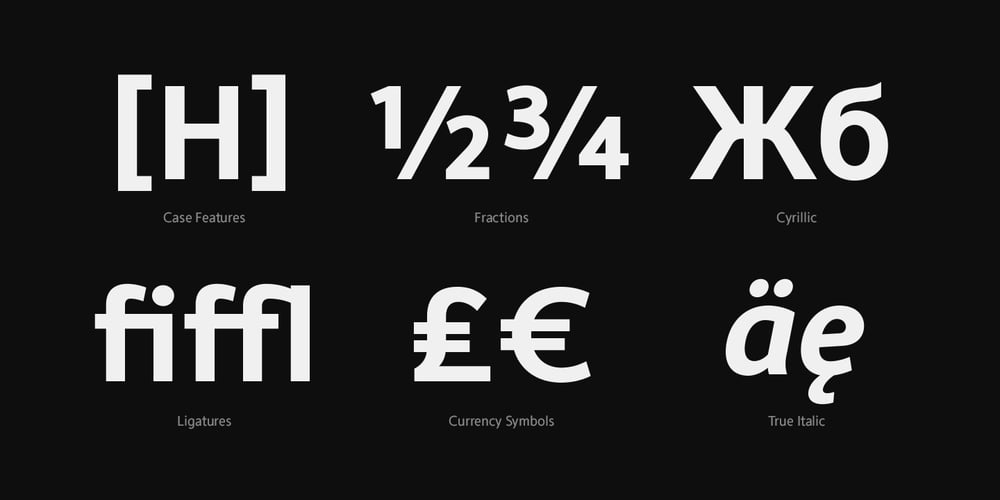
Conamore Font Family was designed by Kim Dong Kwan and published by Grida. Conamore contains 16 styles and family package options. Conamore is a new Humanist Sans family. It consists of 16 styles (8 weights and 8 italics). The structure of the typeface is in a position that is neither too modern nor too classic. It was based on humanist frame and style, but we controlled the shape and removed potential eyesores so it can be easily recognized. These characteristics are suitable for the design requirements, such as editorial design, packaging, branding and display.